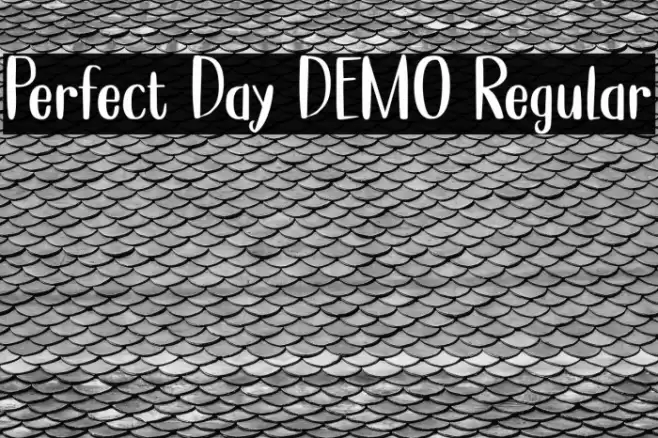
Perfect Day DEMO Regular Font
Perfect Day DEMO Regular Description
This font features a playful and whimsical style with a handwritten appearance. The uppercase letters are tall and slightly narrow, with a consistent stroke width that gives them a clean and modern look. The lowercase letters maintain the same playful feel, with rounded edges and a casual flow. The numbers are bold and easy to read, matching the overall style of the letters. Special characters are included, adding versatility for various design needs. This font is perfect for projects that require a fun and approachable aesthetic.
A playful, handwritten-style font with a modern and whimsical appearance from Uncategorized fonts.
- Proposed Projects: Ideal for children's books, greeting cards, playful branding, and social media graphics.
- Overall Style: Playful
- Use Case: Headlines, Logos, Greeting Cards